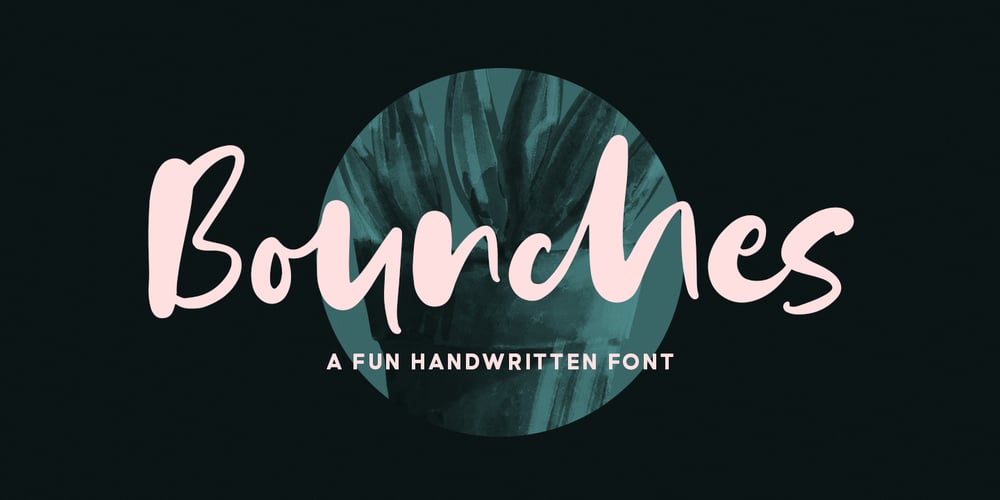
Bounches
Bounches font
Bounches Font Family was designed by Bagas Ardiatma and published by Trustha. Bounches contains 2 styles and family package options. Bounches is a fun handwritten font, it’s dynamic handwriting. Comes with two font styles, regular and slant. Bounches are suitable for branding, advertising, headlines, packaging design, and many more.